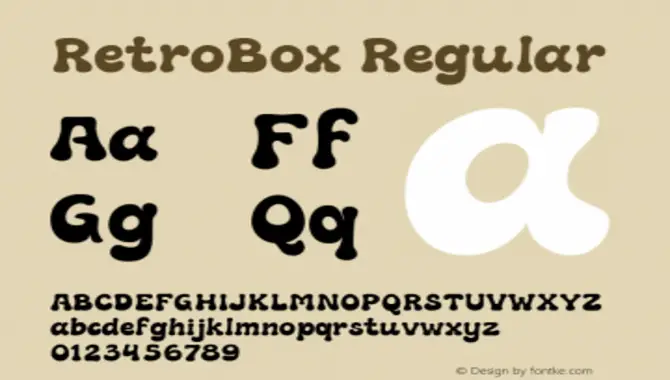
A Disney font encompasses the different typefaces and typography styles associated with Disney. The most famous Disney font is “Waltograph,” inspired by Walt Disney’s signature.
Other options include “Mickey Ears” and “Princess,” each with its own distinct style. These fonts are used to create Disney-themed graphics and invitations or add a personal touch to documents.
Here we will dive into the world of Disney font in word and show you how to use them in Word. From the classic Waltograph font to the whimsical Mickies font, we have curated a list of the top Disney fonts to bring your graphic designs to life. So get ready to unleash your creativity and sparkle your documents with Disney magic.
Top 7 Disney Font In Word For Magical Graphic Design
Disney font is a popular choice for adding a touch of magic and whimsy to your documents in Microsoft Word. Looking to add a touch of magic to your graphic design projects? Discover the top Disney fonts for Word to create stunning designs. Bring Disney-inspired elements to your work with fonts like Mickies, Colores Font Duo, Waltograph (the original Disney logo font), Retrobox, and more.
1. Mickies – A Fun Disney-Like Font
Looking to add a touch of Disney magic to your designs? Look no further than Mickies – a whimsical and lively font that captures the essence of the Disney brand. With its playful and rounded letters, Mickies brings a fun and enchanting element to any design project.
Whether you’re creating invitations, party decorations, or other graphic design projects with a Disney theme, Mickies is the perfect font choice. It’s easily downloadable and installable in Microsoft Word, allowing you to infuse your documents with the joy and wonder of Disney. Let your imagination soar and create visually stunning designs that will transport you to the land of enchantment.
2. Colores Font Duo
Colores Font Duo is a versatile and popular font perfect for various projects like invitations, posters, and social media graphics. It captures Disney’s whimsical and playful spirit, adding nostalgia and magic to your designs. Whether you’re creating a vintage-inspired invitation or a vibrant social media graphic, Colores Font Duo is a great way to infuse your designs with the enchantment of Disney. With its script and sans-serif variations, this font offers endless possibilities for creative expression. Install and explore the Colores Font Duo today for visually captivating designs that evoke the magic of Disney.
3. Waltograph (Original Disney Logo Font)
Capture the enchantment and nostalgia of Disney with Waltograph, a popular font resembling the original Disney logo. For free download, Waltograph can be used in Word documents to add a touch of Disney magic to your designs.
With its uppercase and lowercase letters, numbers, and punctuation marks, Waltograph offers endless design possibilities for invitations, party decorations, and other Disney-themed projects. Simply download and install the font on your computer, then select it from Word’s font list to infuse your creations with the spirit of Walt Disney.
4. Retrobox — A Retro Fancy Font
Retrobox is a fantastic retro fancy font that brings back the nostalgic charm of classic Disney designs. With its elegant and decorative lettering, Retrobox adds a whimsical touch to any Word document or graphic design project while capturing the essence of the Disney brand.
This font features unique flourishes and details that make your designs stand out and evoke a sense of Disney magic. Whether you’re creating invitations, party decorations, or other Disney-themed graphics, Retrobox is the perfect font choice. Its bold and eye-catching style adds a touch of vintage flair to your designs, making them memorable and enchanting. Rediscover the allure of Disney fonts with Retrobox and bring a touch of magic to your creations.
5. Runtoys
Run Toys font is a popular Disney-inspired font that captures the bold and playful style of the iconic Walt Disney logo. It’s a great way to add a touch of Disney magic to your designs without any hassle. Free to download, Runtoys is compatible with Microsoft Word and other design software.
Whether you’re creating invitations, posters, or any other graphic projects, Runtoys will bring a fun and nostalgic vibe to your work, making it stand out. With Runtoys, you can create eye-catching designs that evoke the charm and excitement of Disney.
6. Mouse Memoirs Font
Mouse Memoirs Font is popular for creating designs with a touch of Disney magic. Inspired by the iconic Mickey Mouse character and capturing Disney’s whimsical and playful spirit, this font is perfect for adding a fun and recognizable style to any project. Whether you’re creating invitations, party decorations, or other designs related to Disney themes, Mouse Memoirs Font is the ideal choice.
It can be easily downloaded and installed in Microsoft Word or other design software, allowing you to bring a touch of nostalgia and magic to your creative projects. As a free font, it provides a great way to incorporate the Disney brand into your work without hassle. Download Mouse Memoirs Font today and add that Disney touches to your designs.
7. Gweneth
Gweneth is a popular font that captures Disney’s whimsical and nostalgic feel. Resembling the iconic Walt Disney logo, it’s perfect for creating Disney-themed invitations, posters, and other designs. Accessing Gweneth in Word is easy – simply download the font file and install it on your computer.
Once installed, Gweneth can be found in the font menu in Word, allowing you to create your magical designs effortlessly. Bring the magic of Disney to your projects with Gweneth, and let your creativity soar.
The Disney font is a popular choice for adding a touch of magic and whimsy to your documents in Word. With its iconic lettering style, the Disney font can make your text stand out and add a playful element to your projects.
Now that you know about the top Disney font in word, it’s time to unleash your creativity and add a touch of magic to your graphic designs. Whether you’re creating invitations, posters, or social media posts, these fonts will help bring that whimsical Disney feel to your projects. So unleash your creativity, and bring some Disney magic into your Word documents today.
1.What Is The Disney Font On Word Called?
Ans: The Disney font available on Word is known as “Waltograph.” It’s a free font that captures the handwriting style of Walt Disney. You can download and install it on your computer to use in Microsoft Word, adding a touch of magic to your documents or projects.
2.How Do I Add Disney Fonts To Word?
Ans: First, download and install the desired font from a reputable website to add Disney fonts to Word. Then, extract the font files from the downloaded folder. In Microsoft Word, click the “Font” dropdown menu and select “More Fonts” to access the font library and locate your installed Disney font.
3.What Is The Classic Disney Font?
Ans: The classic Disney font, “Waltograph,” is a free font that mimics Walt Disney’s handwriting. You can download and install it on your computer for Word documents. Adding the whimsical and magical Waltograph font can enhance any Disney-themed project.
4.What Font Are Mickey Mouse Letters?
Ans: The font commonly used for Mickey Mouse letters is “Waltograph” or “Mickey.” It is a free Disney font resembling the lettering in the Disney logo and Mickey Mouse merchandise.
5.Where Can You Use Disney Font?
Ans: Disney font is versatile and can be used in various creative projects, including invitations, party decorations, and scrapbooking. It’s popular for designing Disney-themed merchandise and personalized gifts like mugs, t-shirts, and posters.